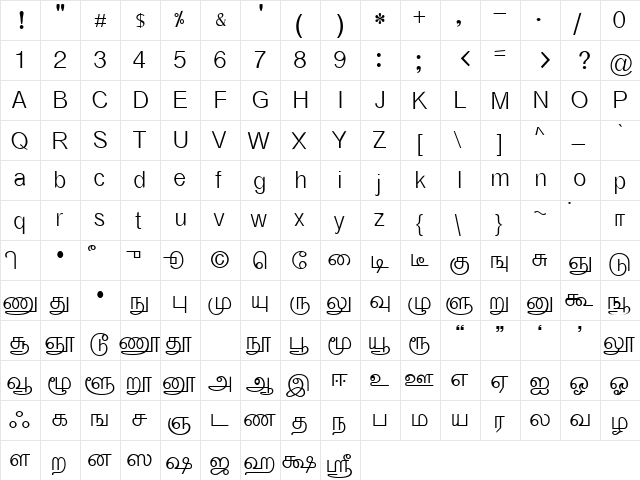
TAB_ELANGO_Barathi Normal
Design Context for TAB_ELANGO_Barathi Typeface
TAB_ELANGO_Barathi is a composed and adaptable typeface that performs quietly and consistently across a wide range of design contexts.